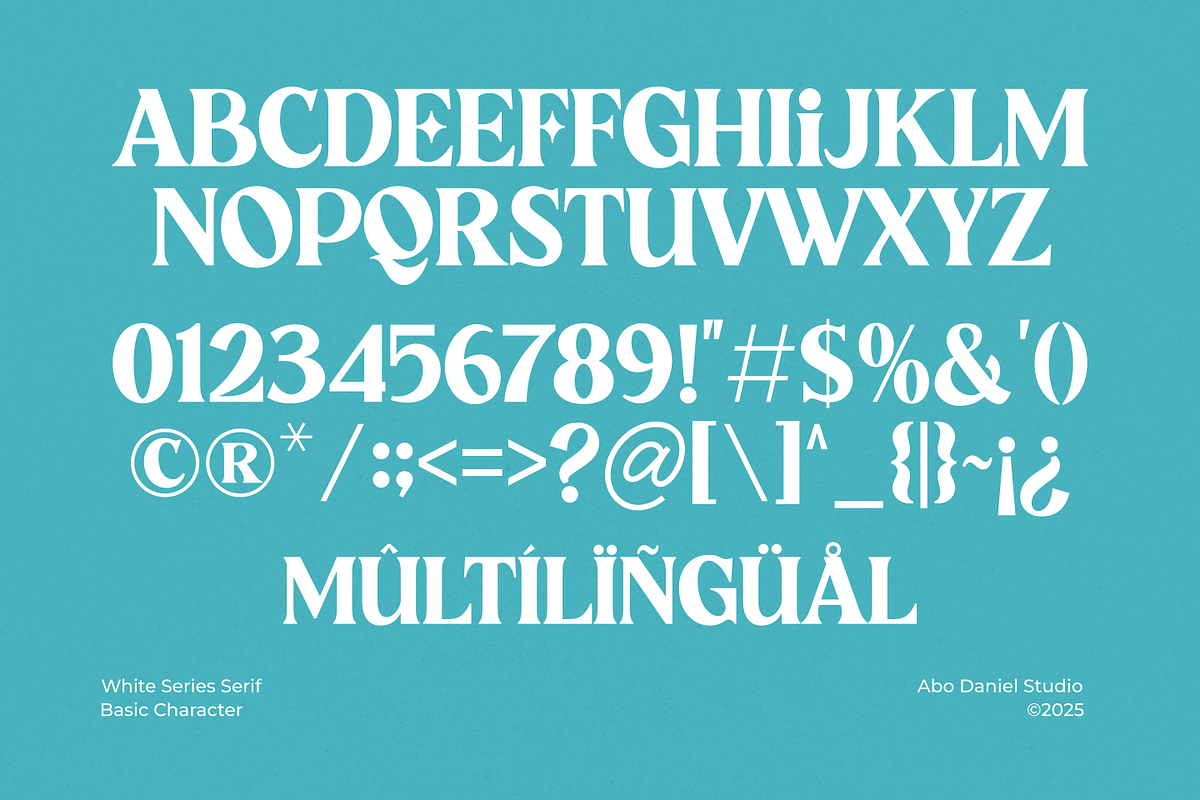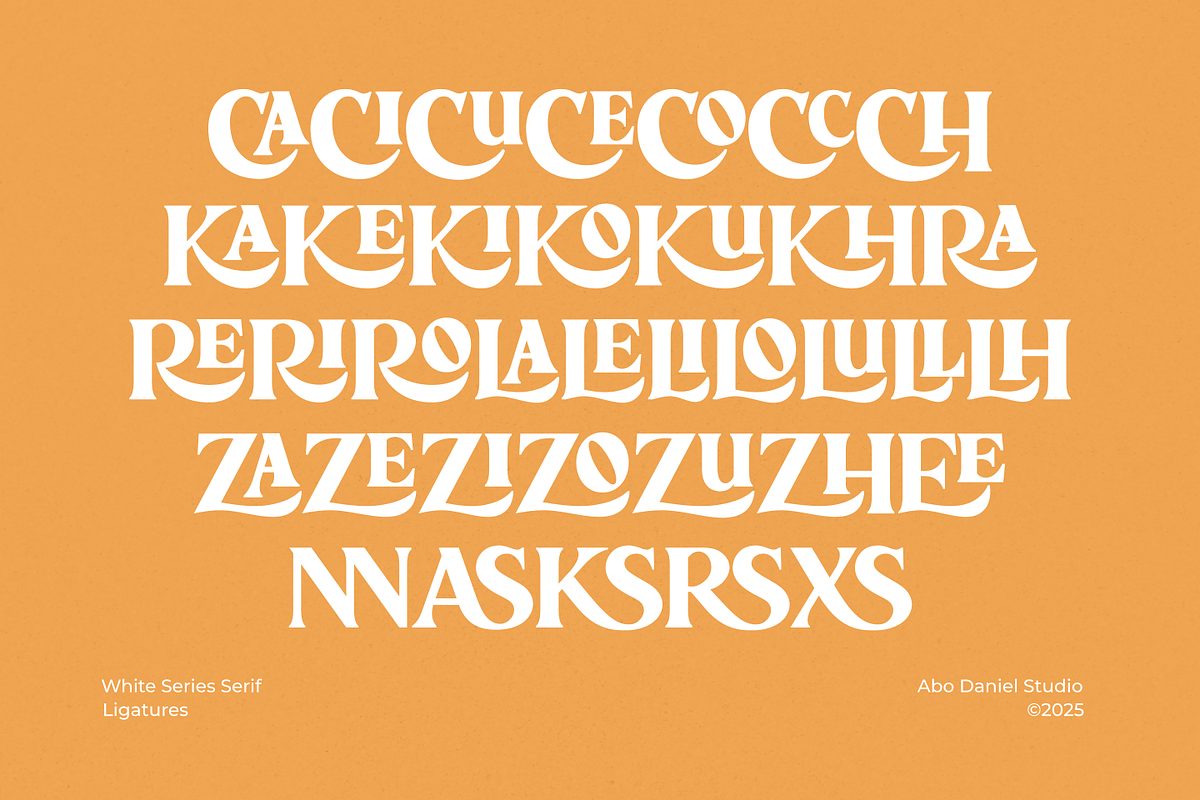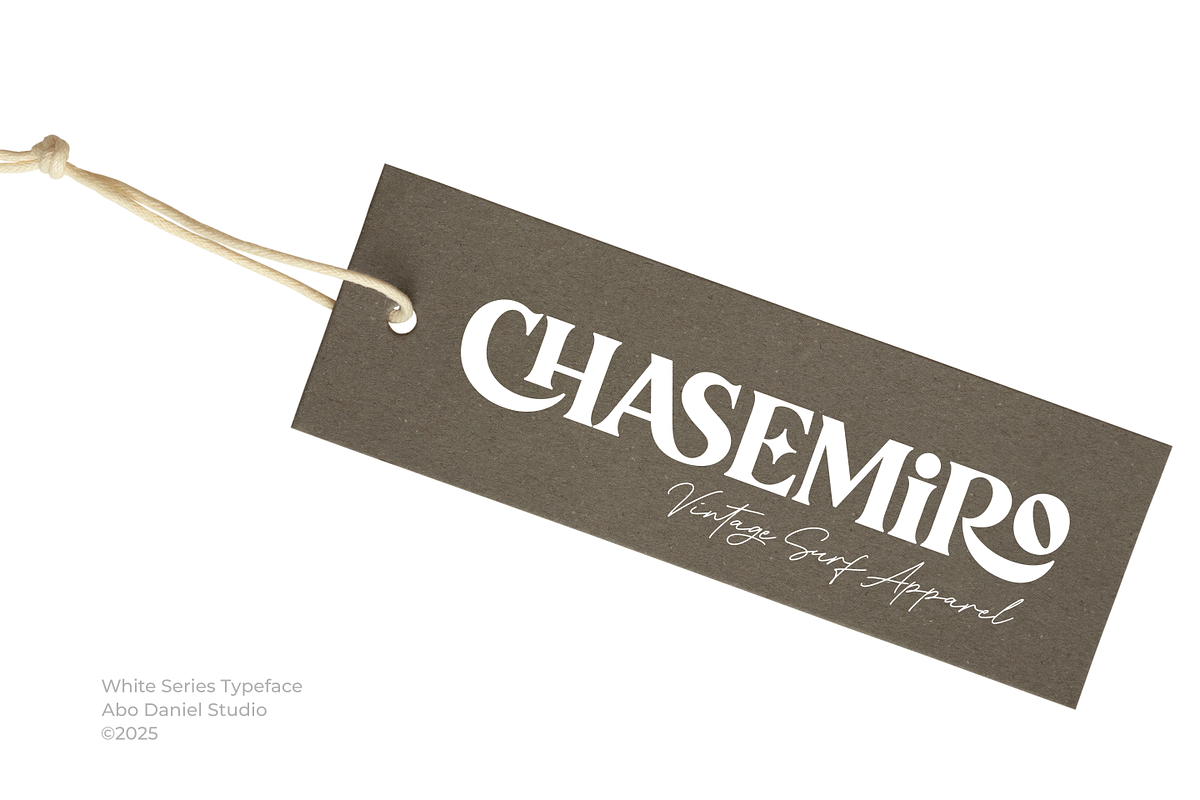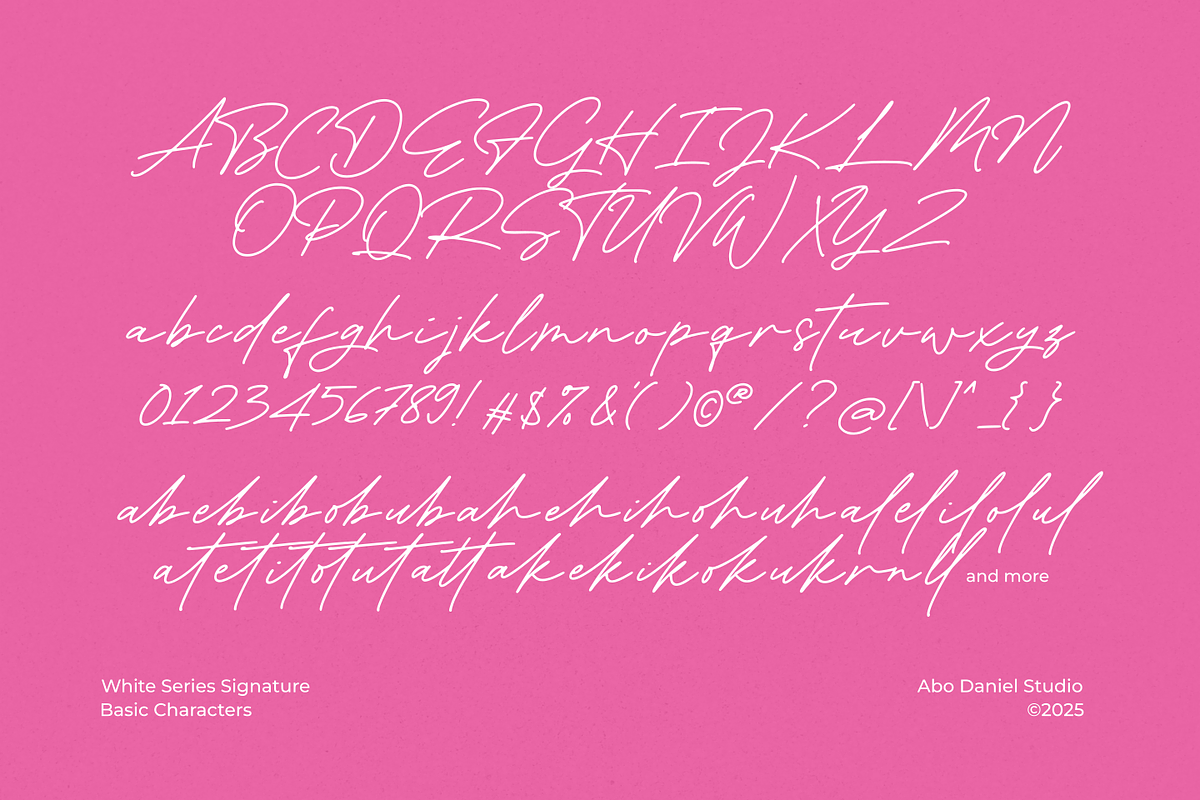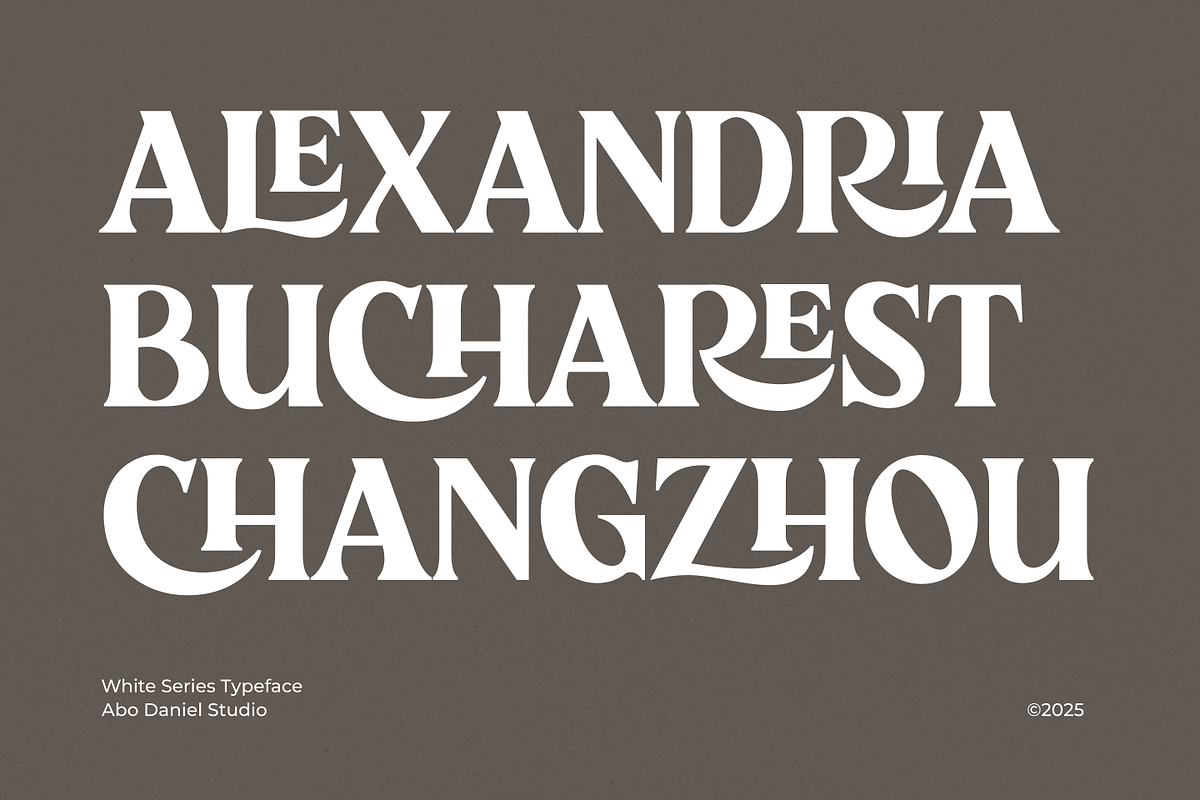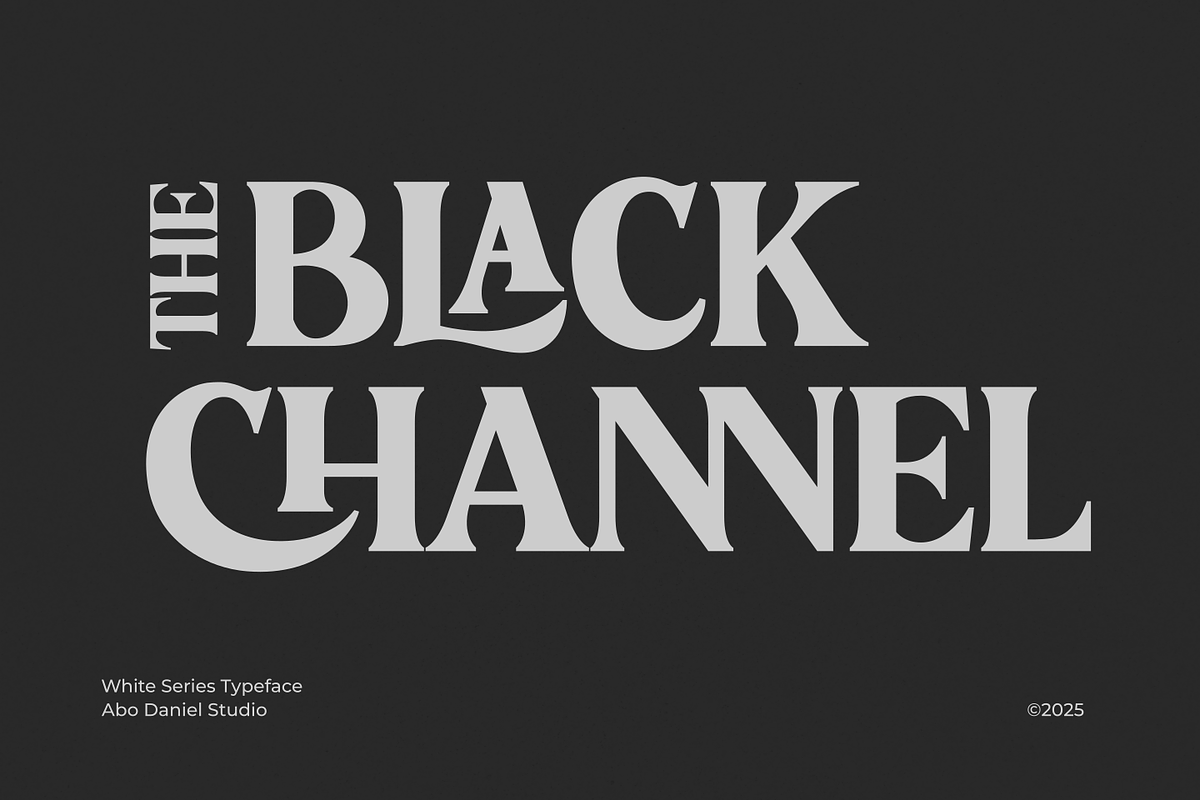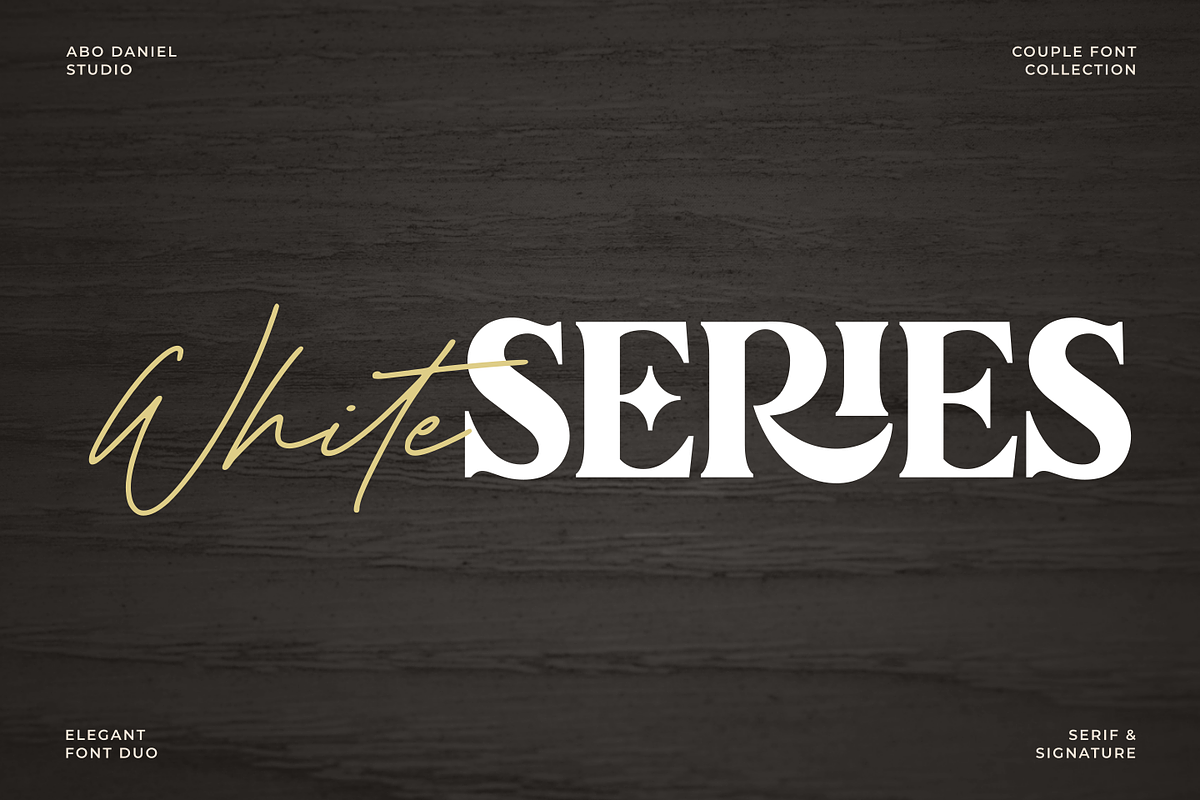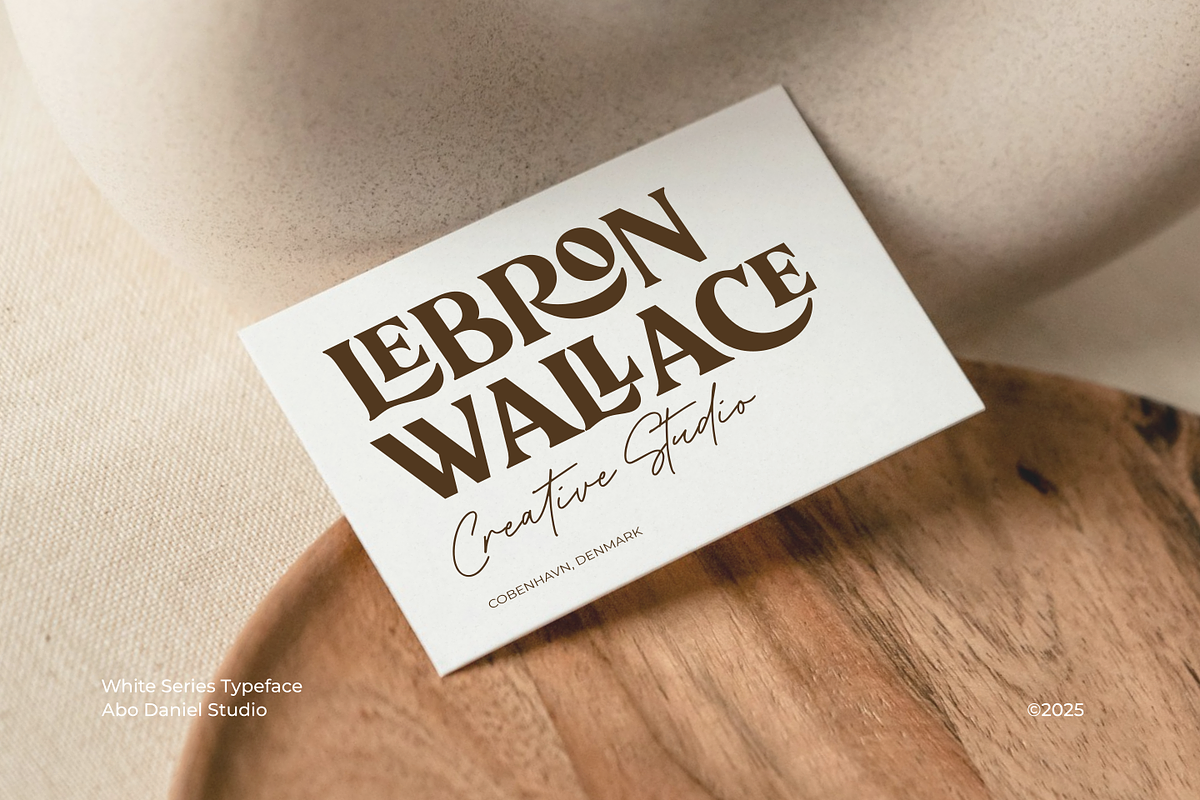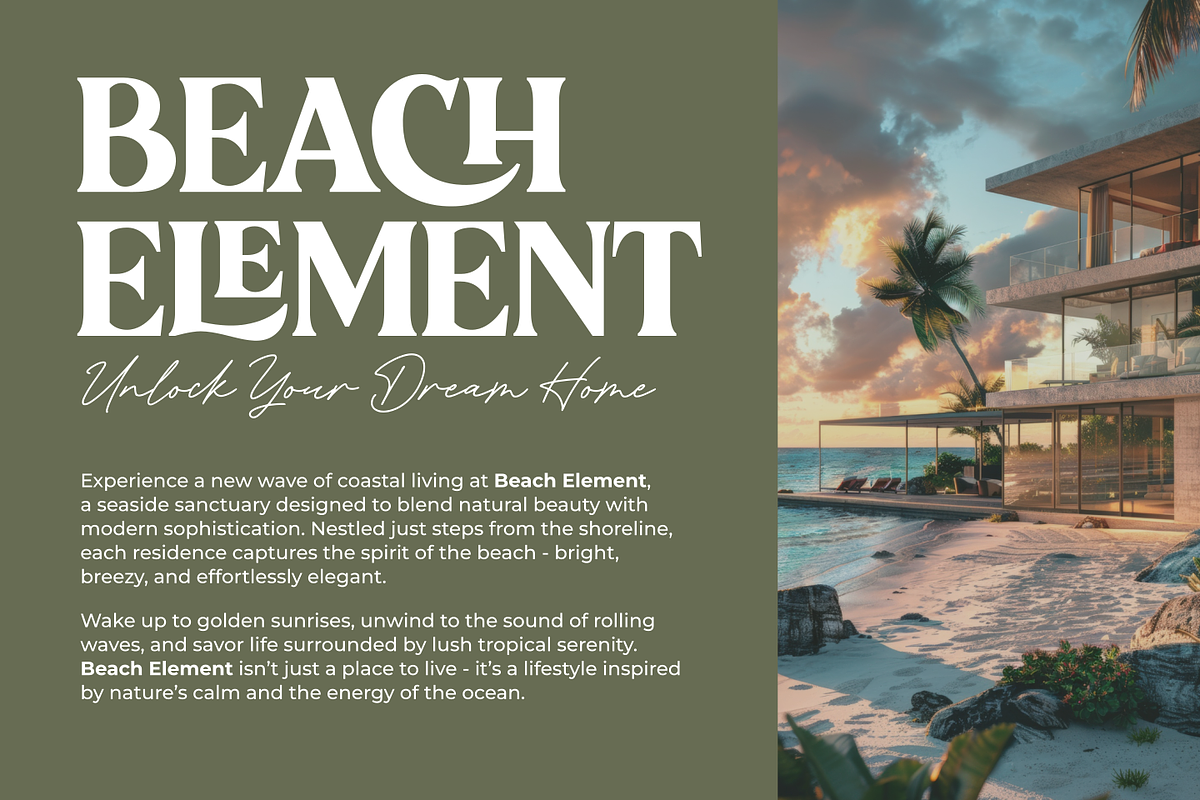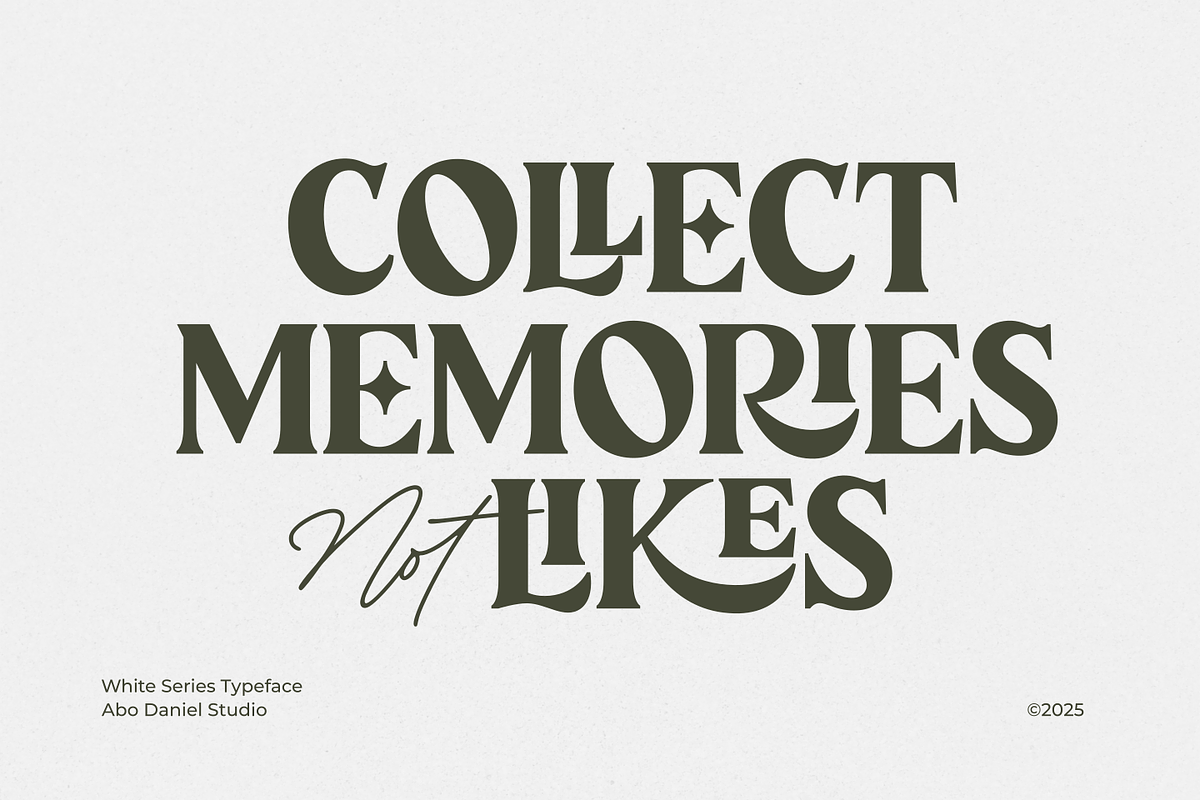
White Series
White Series is an elegant duo that pairs timeless grace with modern charm. Featuring a refined serif and a flowing signature script, these two fonts complement each other like perfect partners—balanced, stylish, and effortlessly sophisticated. The serif brings structure and poise, while the signature adds a personal, graceful touch. Together, White Series creates a harmonious look for branding, logos, cards, invitations, and any design that deserves a touch of class. A beautiful pair made to impress—simple, elegant, and endlessly versatile.